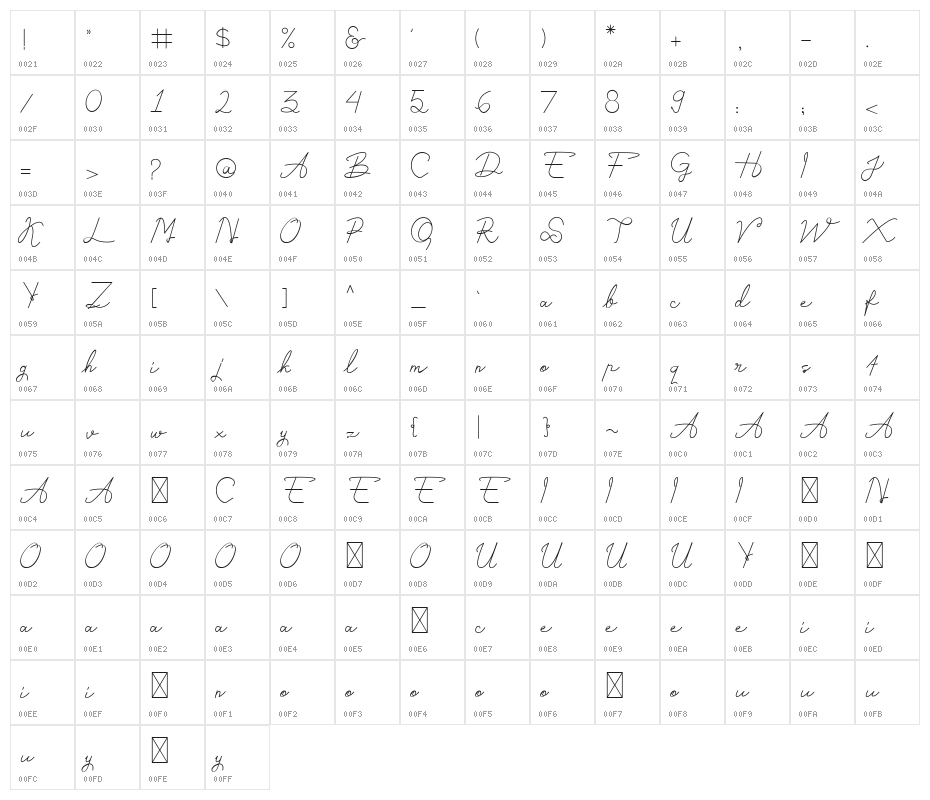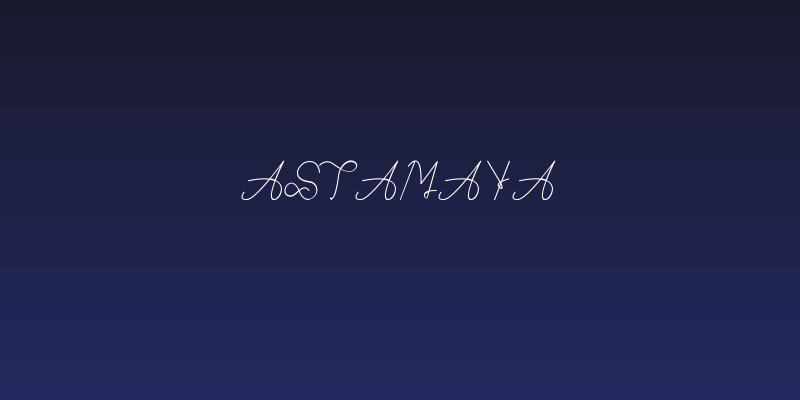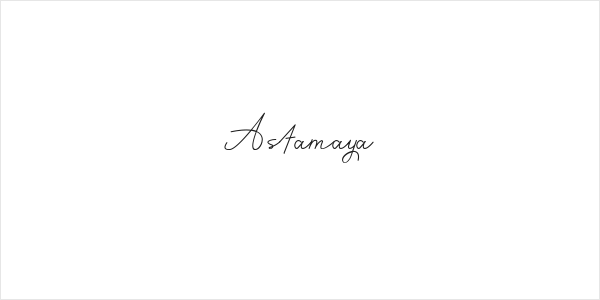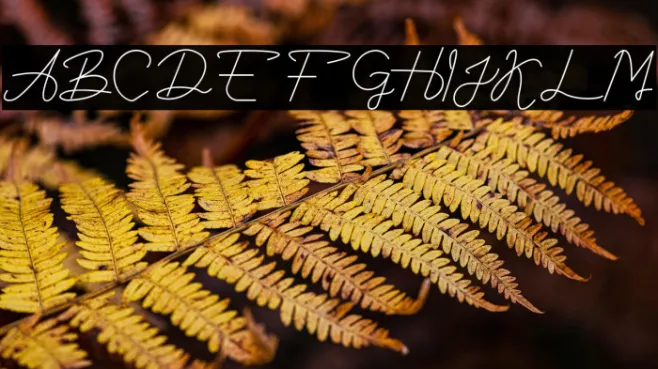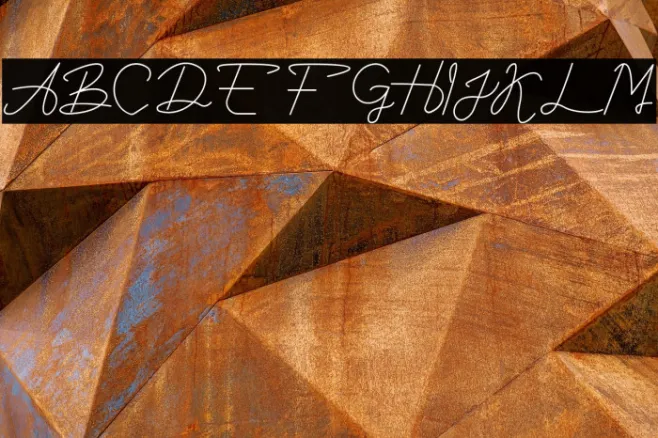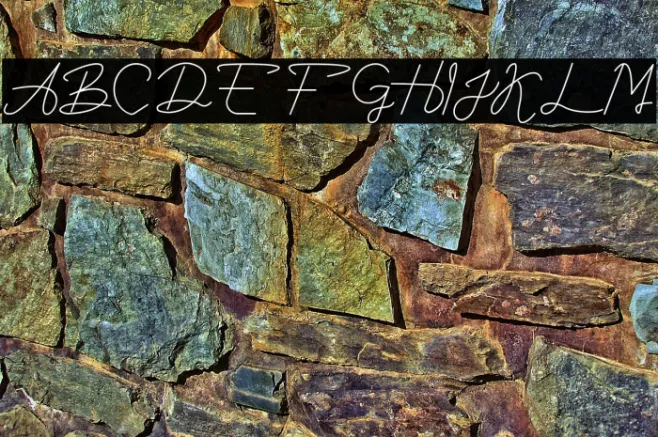
Astamaya Font
Astamaya Description
This elegant script font features a flowing, cursive style with smooth, continuous strokes that mimic natural handwriting. The uppercase letters are slightly more ornate, with graceful loops and curves, while the lowercase letters maintain a consistent, fluid motion. The numerals are clear and legible, complementing the overall aesthetic. Special characters are thoughtfully integrated, maintaining the font's cohesive look. This font exudes a sense of sophistication and charm, making it ideal for projects that require a personal touch.